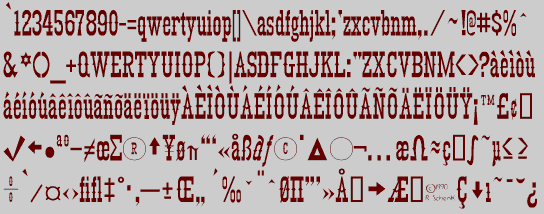
KyhotaBarbed
I like doing typefaces in the spirit of the 19th century. Perhaps this inclination indicates that I am out of touch with the 20th century. If I am, that may not be altogether bad. Though fonts of this sort are often associated with the "Old West" in the United States, they were in common use in the 19th century.
Kyhota, KyhotaTwo and KyhotaBarbed have an "Old West" look, though in fact the style on which they were based was used widely in the 19th century, including many places which were not part of the American West. All three should be used at larger point sizes. Kyhota-Barbed is the most condensed of the three, and the one I like best.
Kyhota was illustrated in the "Type-Drawer" column in the November 1989 issue of Personal Publishing (named later changed to Business Publishing. I am not sure if it is still alive.)